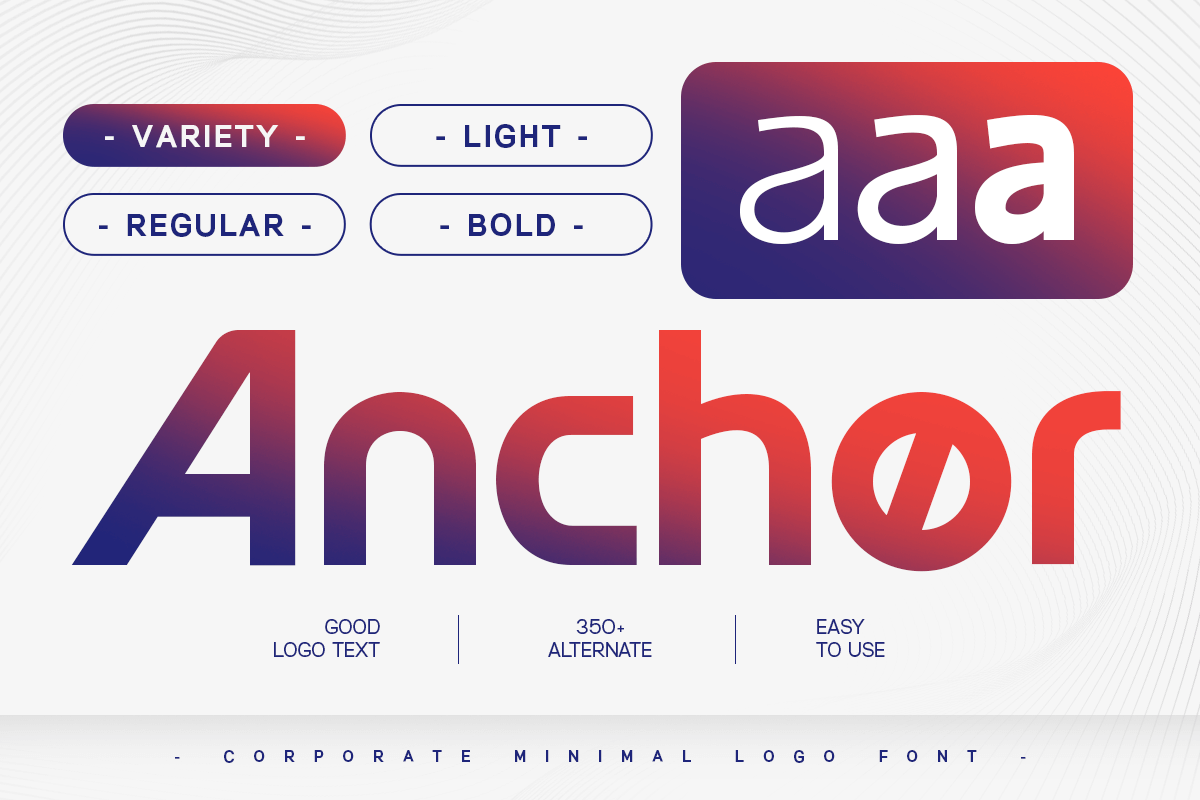
Anchor
-Corporate Minimal Logo Font
Introducing Anchor, a font designed to bring a modern and professional touch to your corporate branding. Combining sleek aesthetics with a minimalist approach, Anchor is perfect for creating logos and branding materials that exude sophistication and professionalism.
With Anchor, your corporate designs will achieve a new level of professionalism and style. Whether you’re working on branding, marketing materials, or business presentations, Anchor provides the perfect blend of modern design and corporate sophistication. Elevate your brand with Anchor and make a lasting impression in the business world.